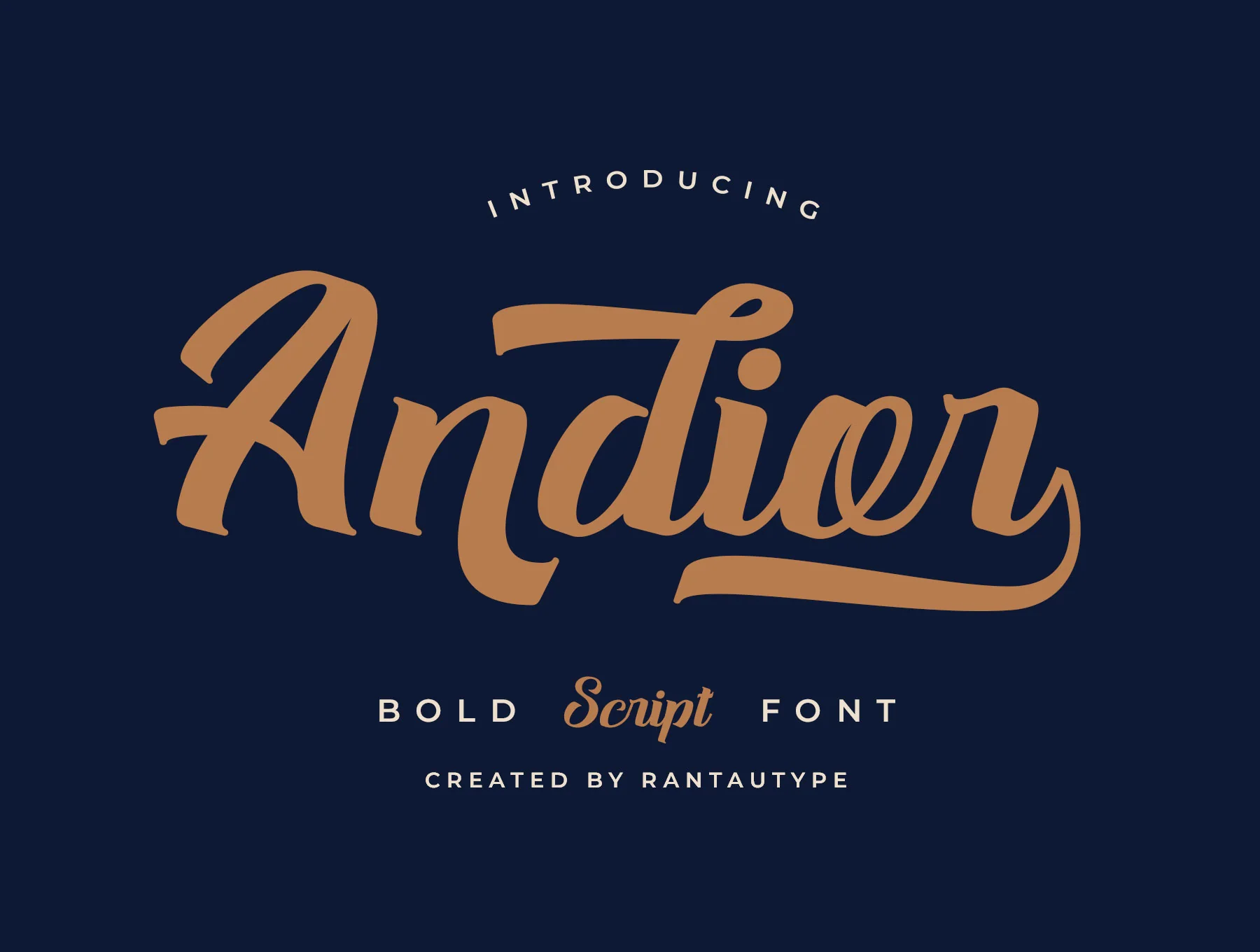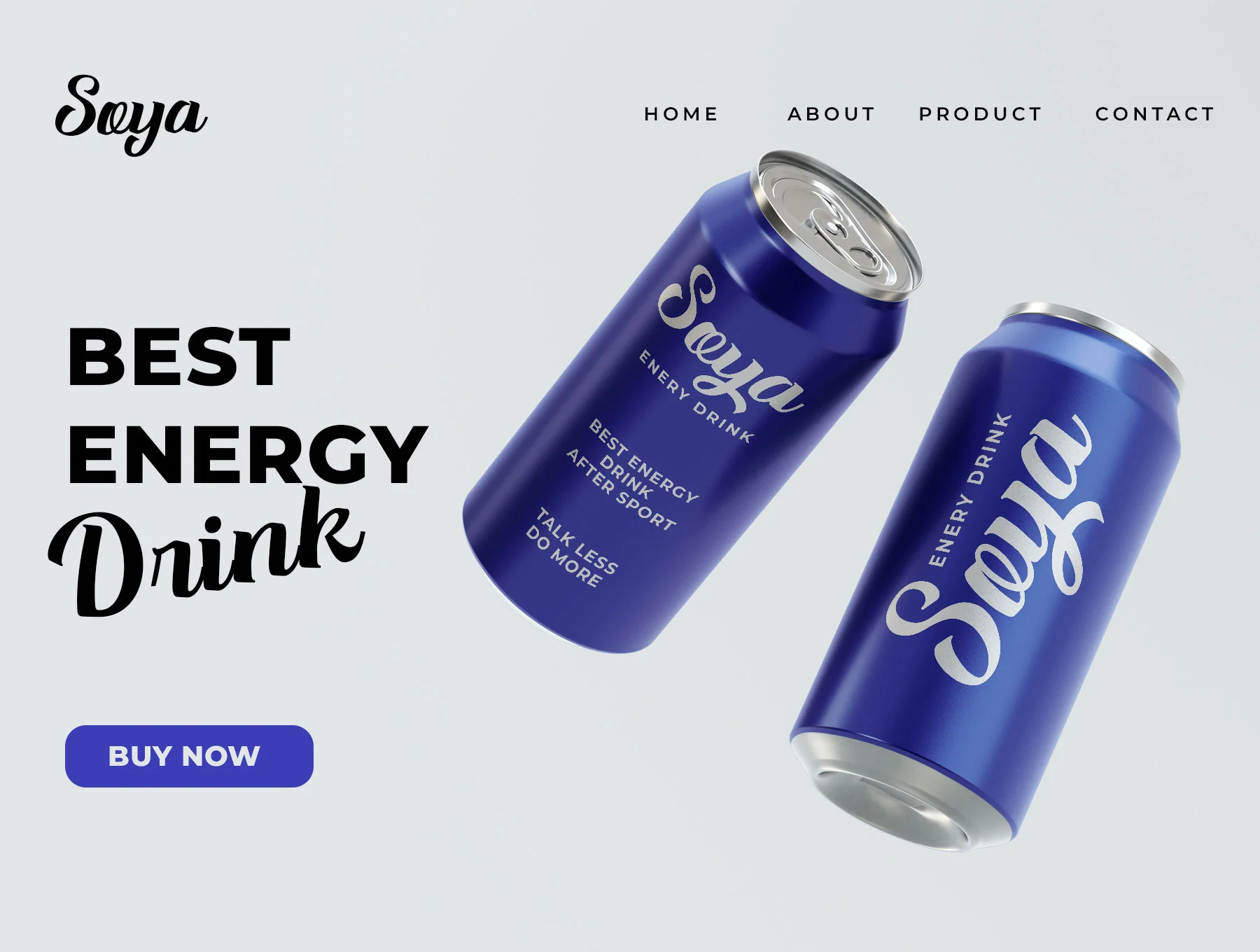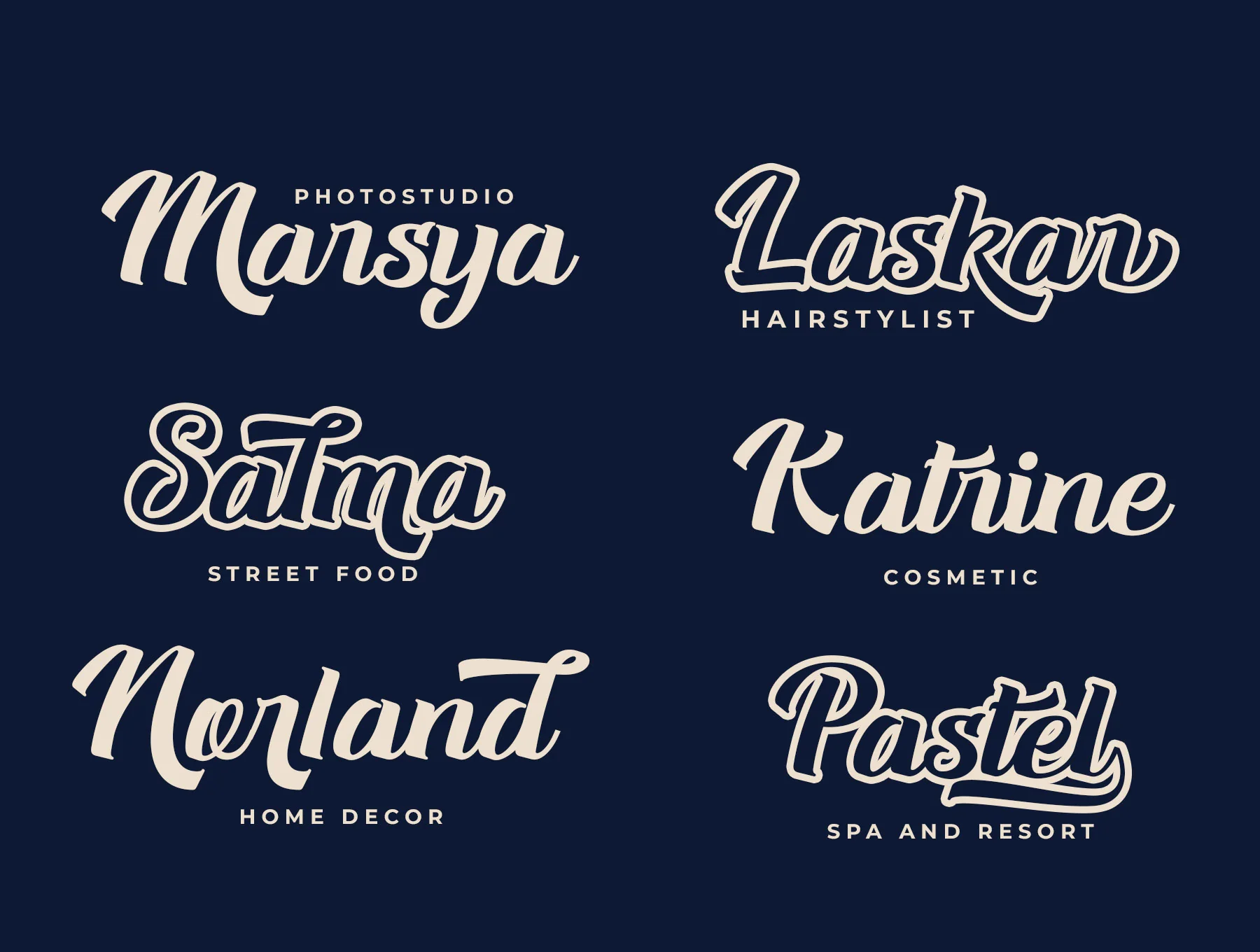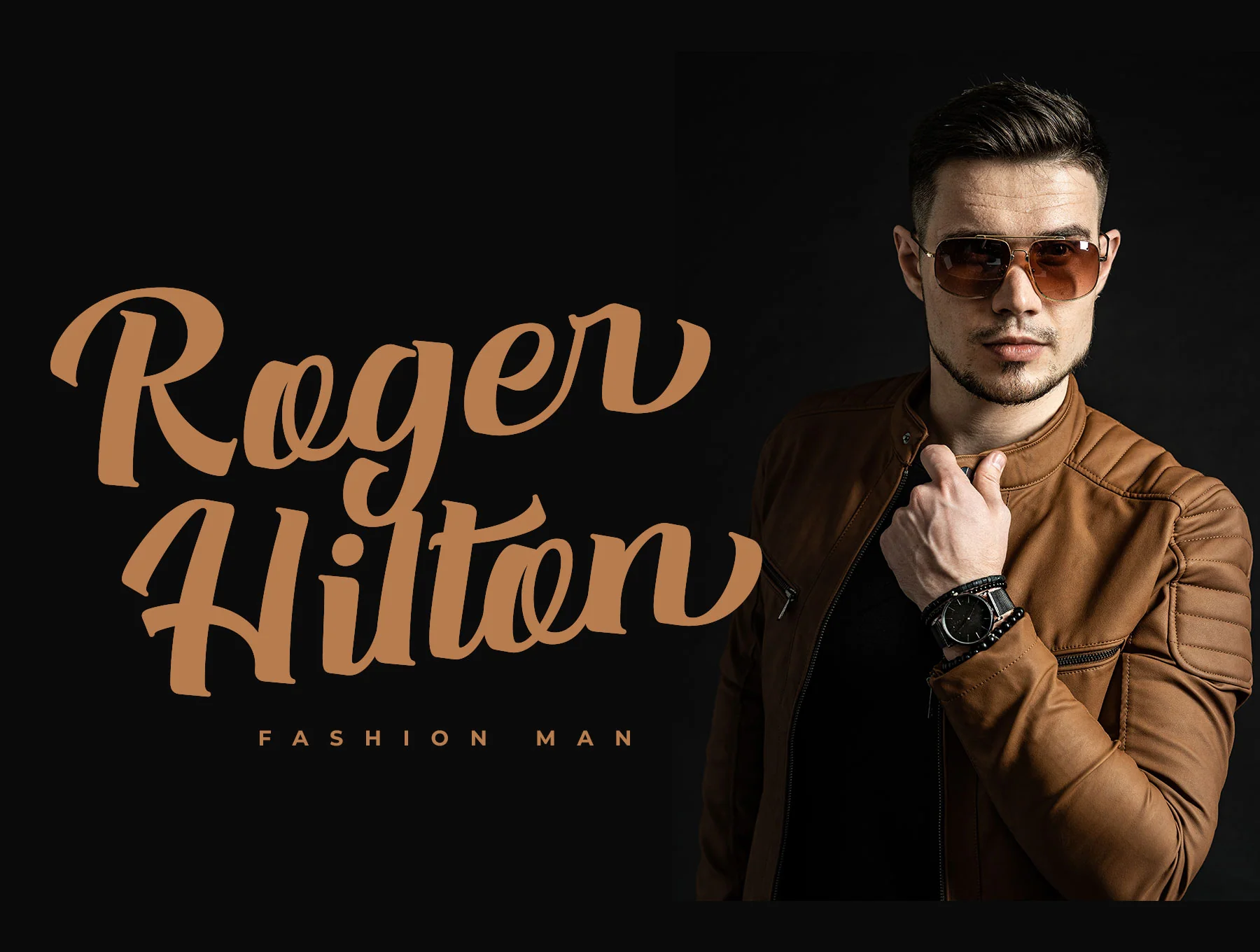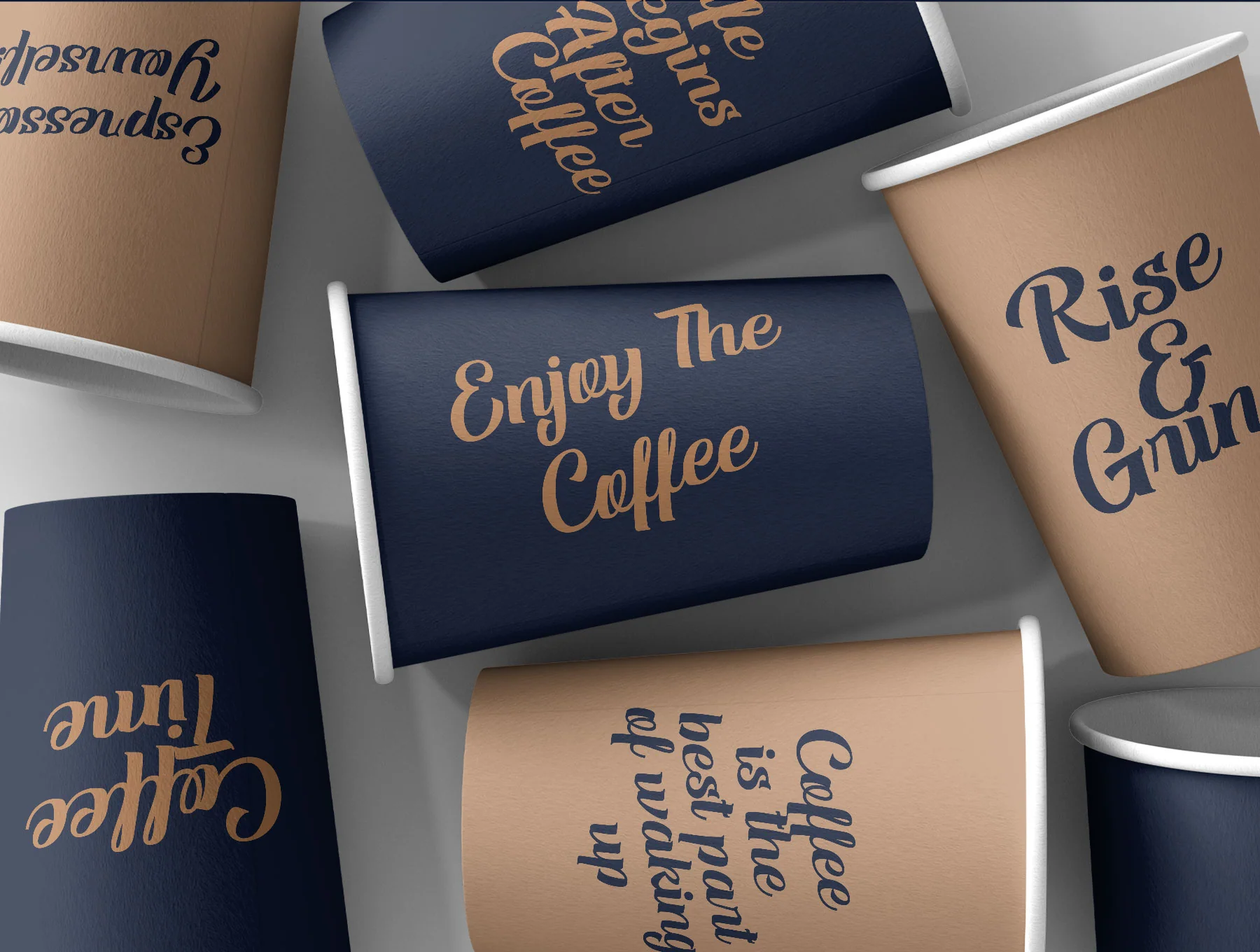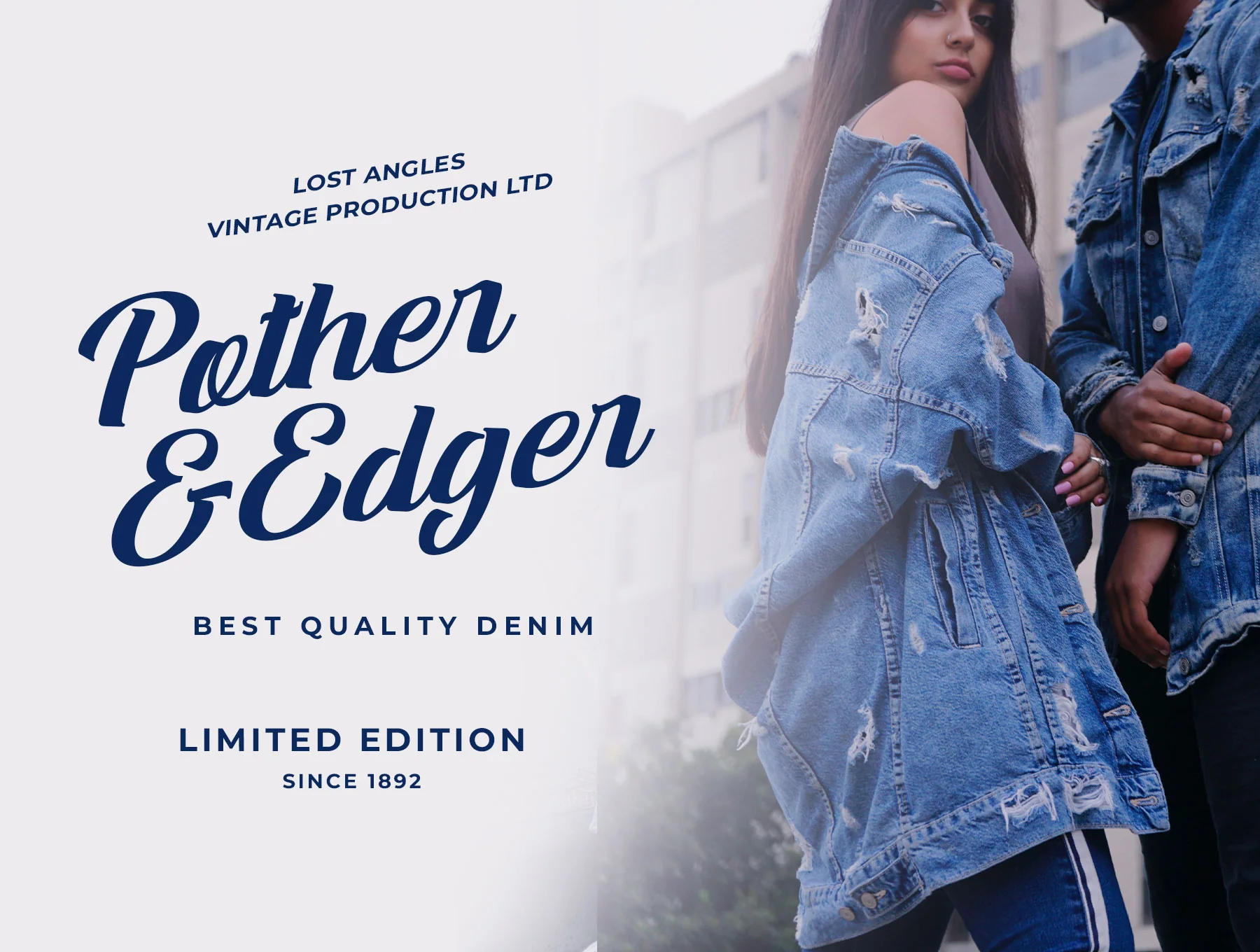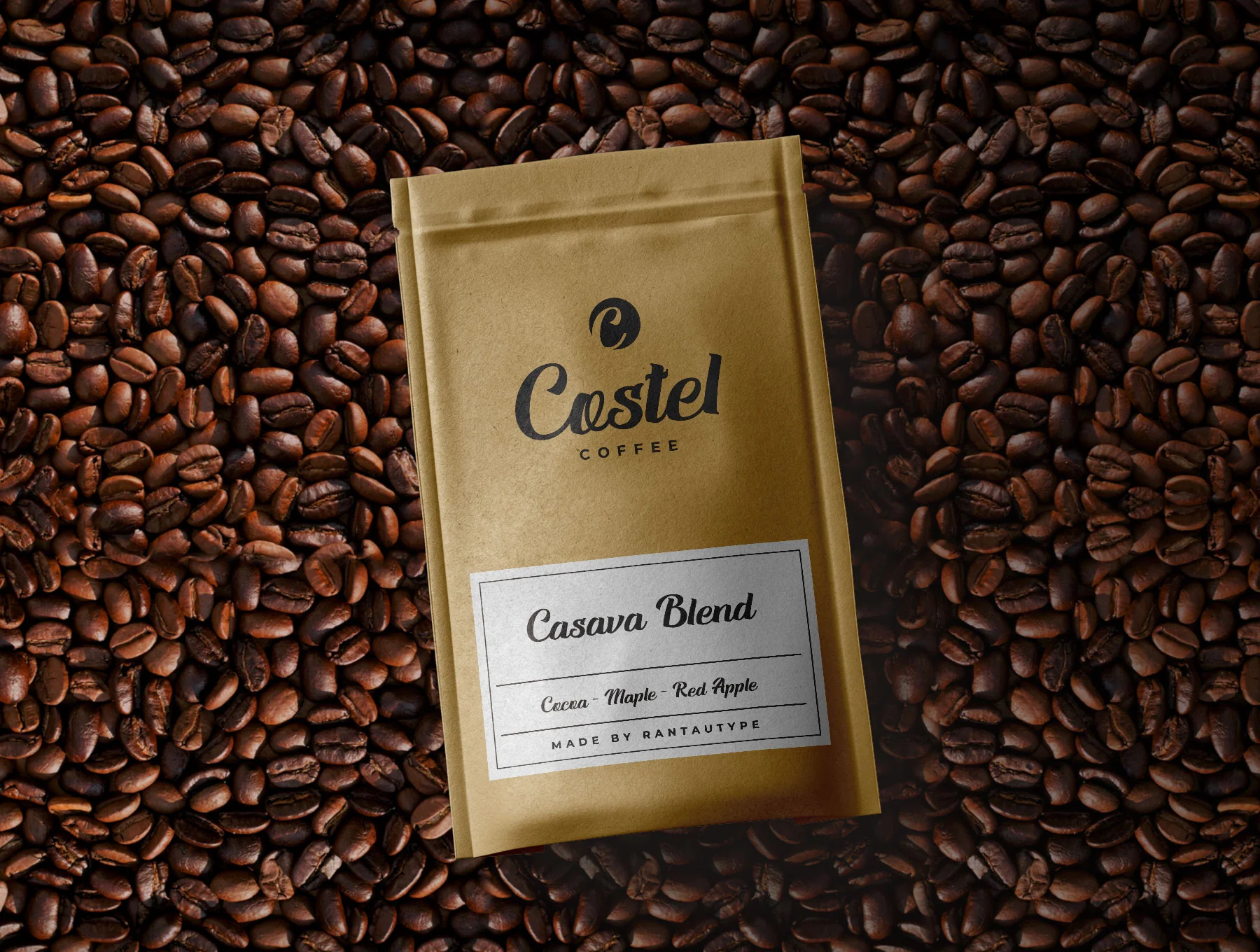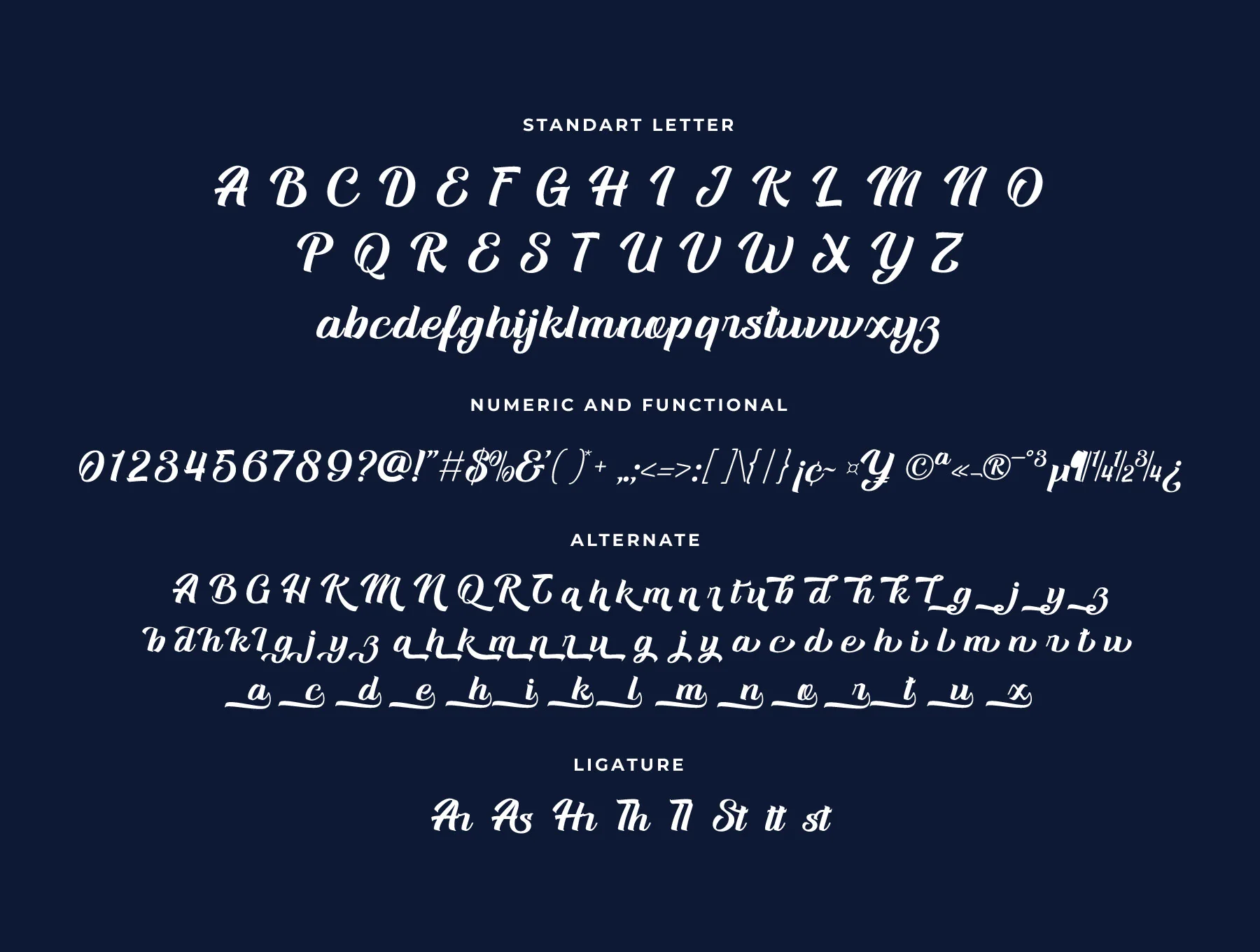
Andior Script Font
Andior Script Typeface
Standard letters A-Z and a-z
Numerals and functional symbols
Ligatures and alternates
Andior is a bold script font by rantautype, designed with smooth curves and a strong style. Ideal for logos, branding, titles, quotes, weddings, magazines, covers, business cards, and more. Includes A-Z, a-z, numbers, alternates, ligatures, multilingual support, and OpenType features. Formats: OTF, TTF, WOFF, WOFF2.